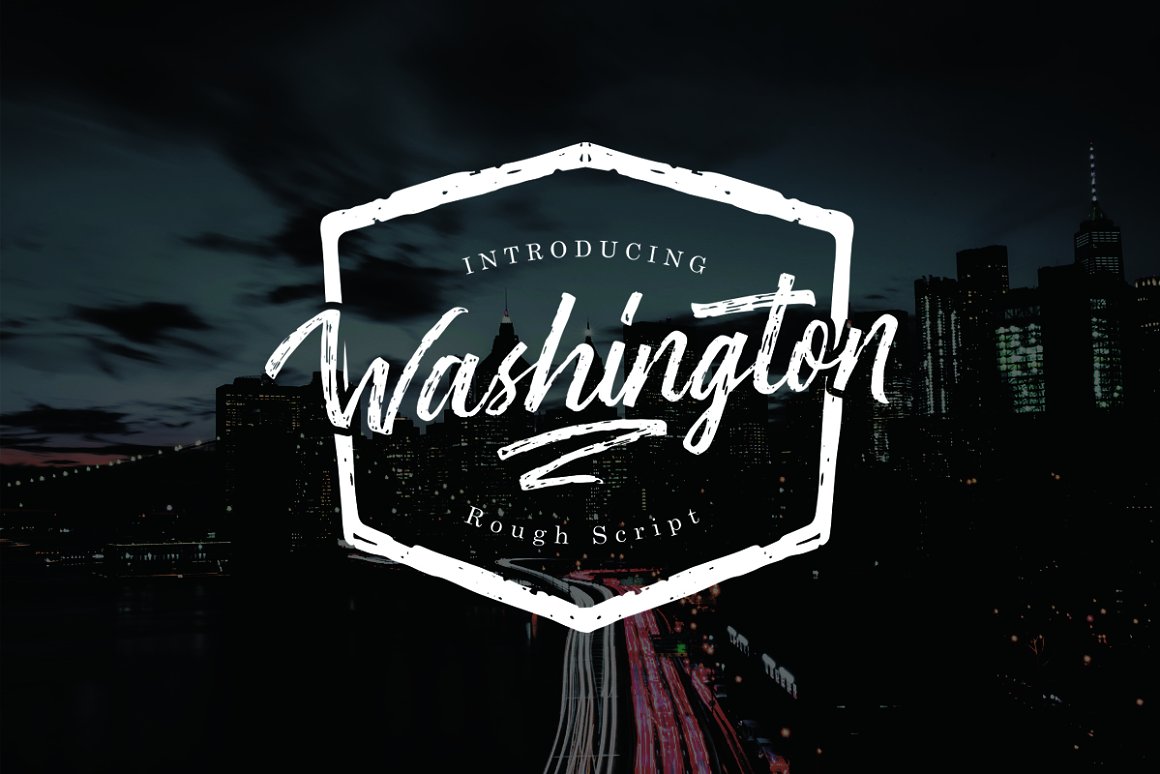
Washington Rough Script
Washington Rough Script Font
Introducing, Washington Rough Script Typeface. give your design with touch of vintage style. this typeface is handmade lettering with vector editing.Washington Rough is suitable for various design projects like Card, T-Shirt, Apparel,Stationary,Book Template, and many more. Washington Rough has +300 Glyphs which is stylisctic Glyphs.